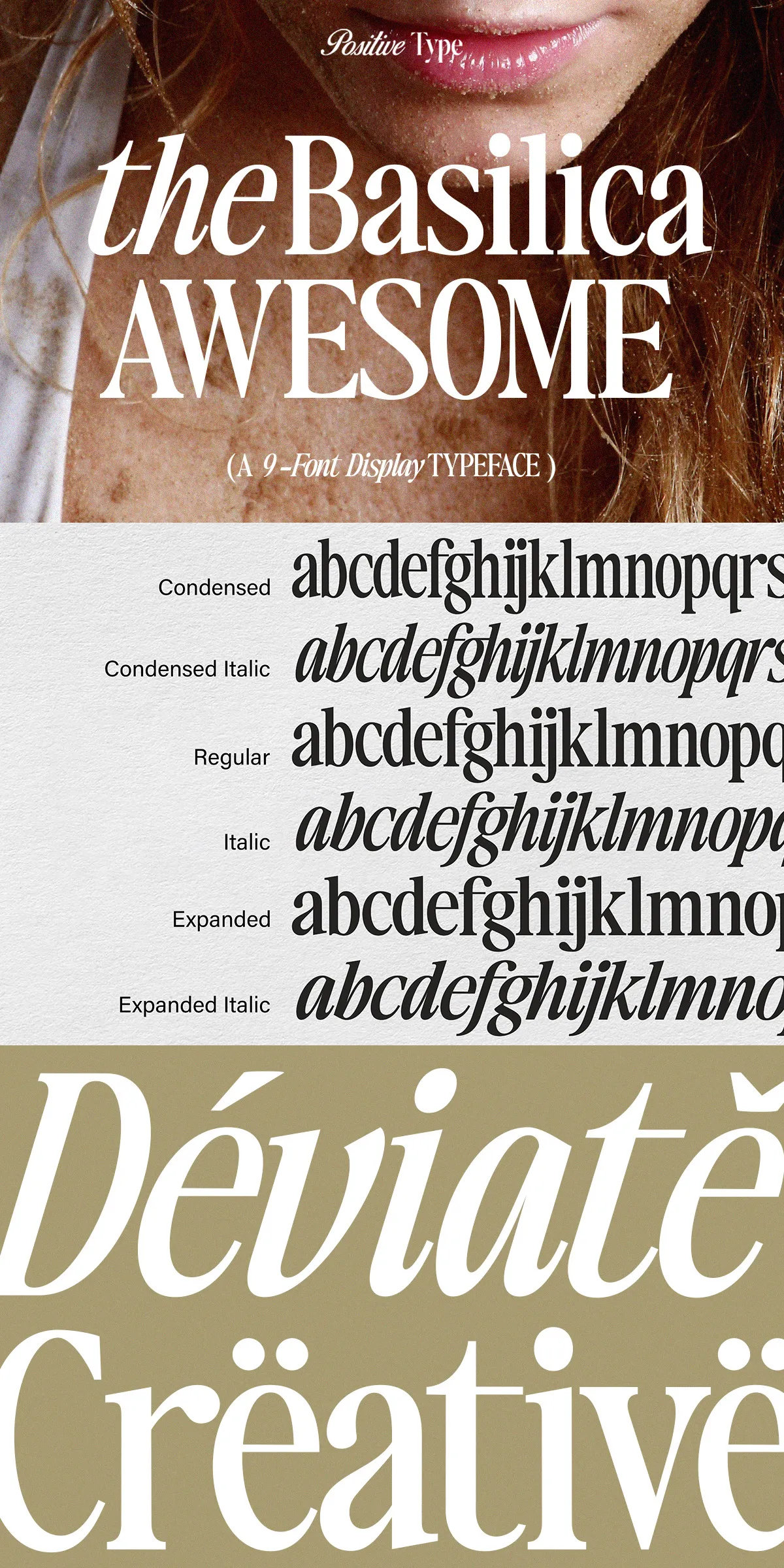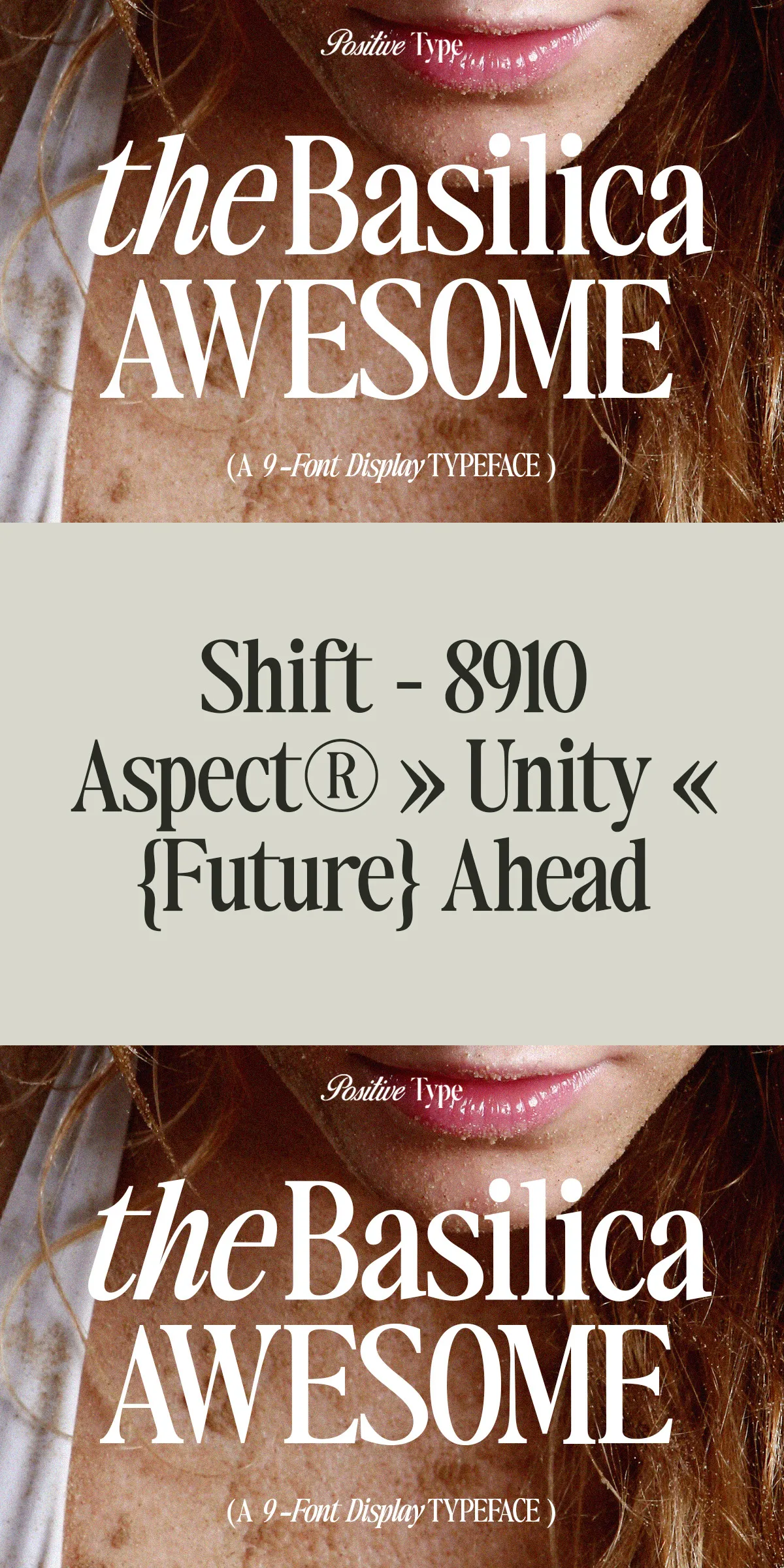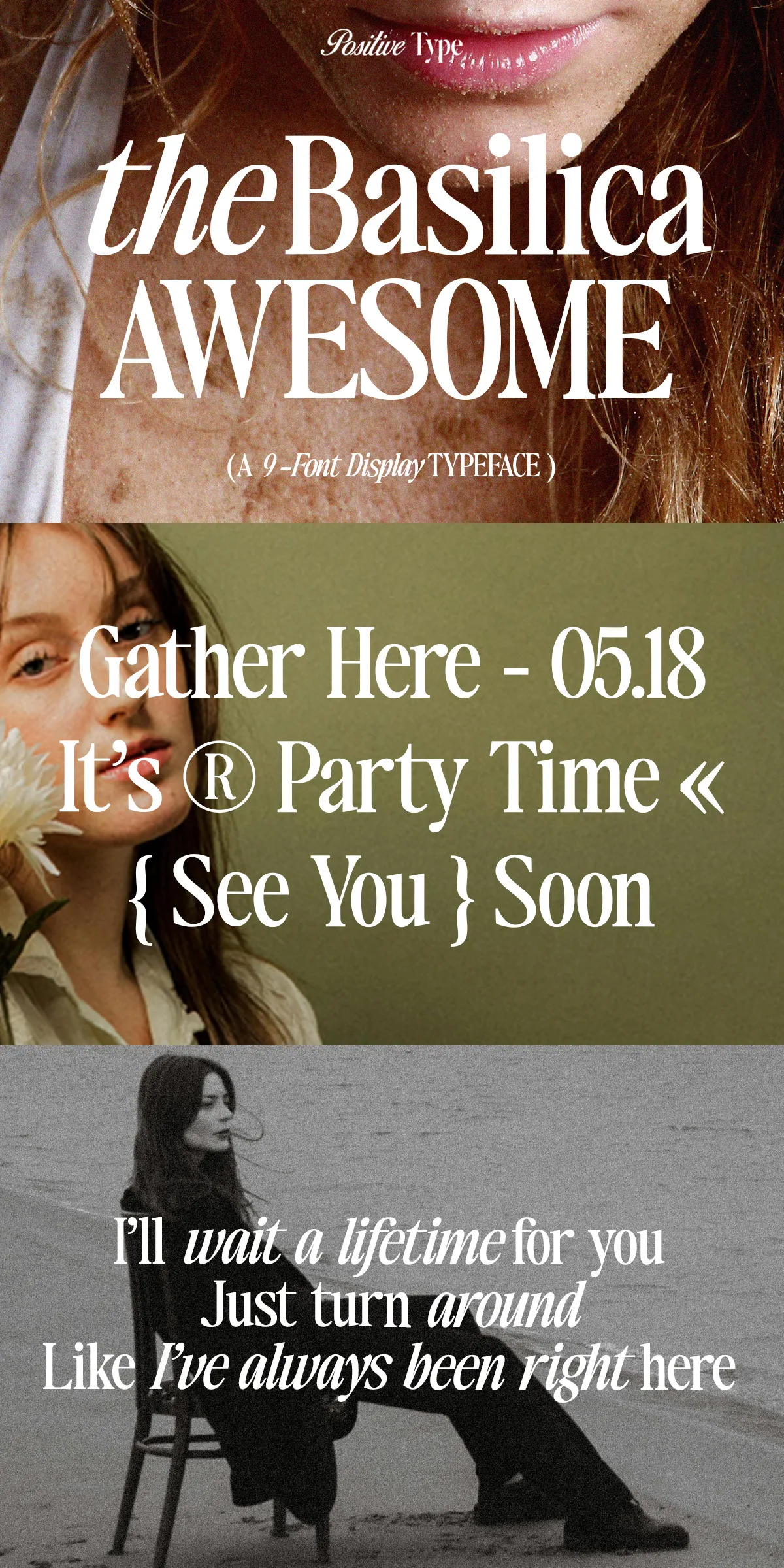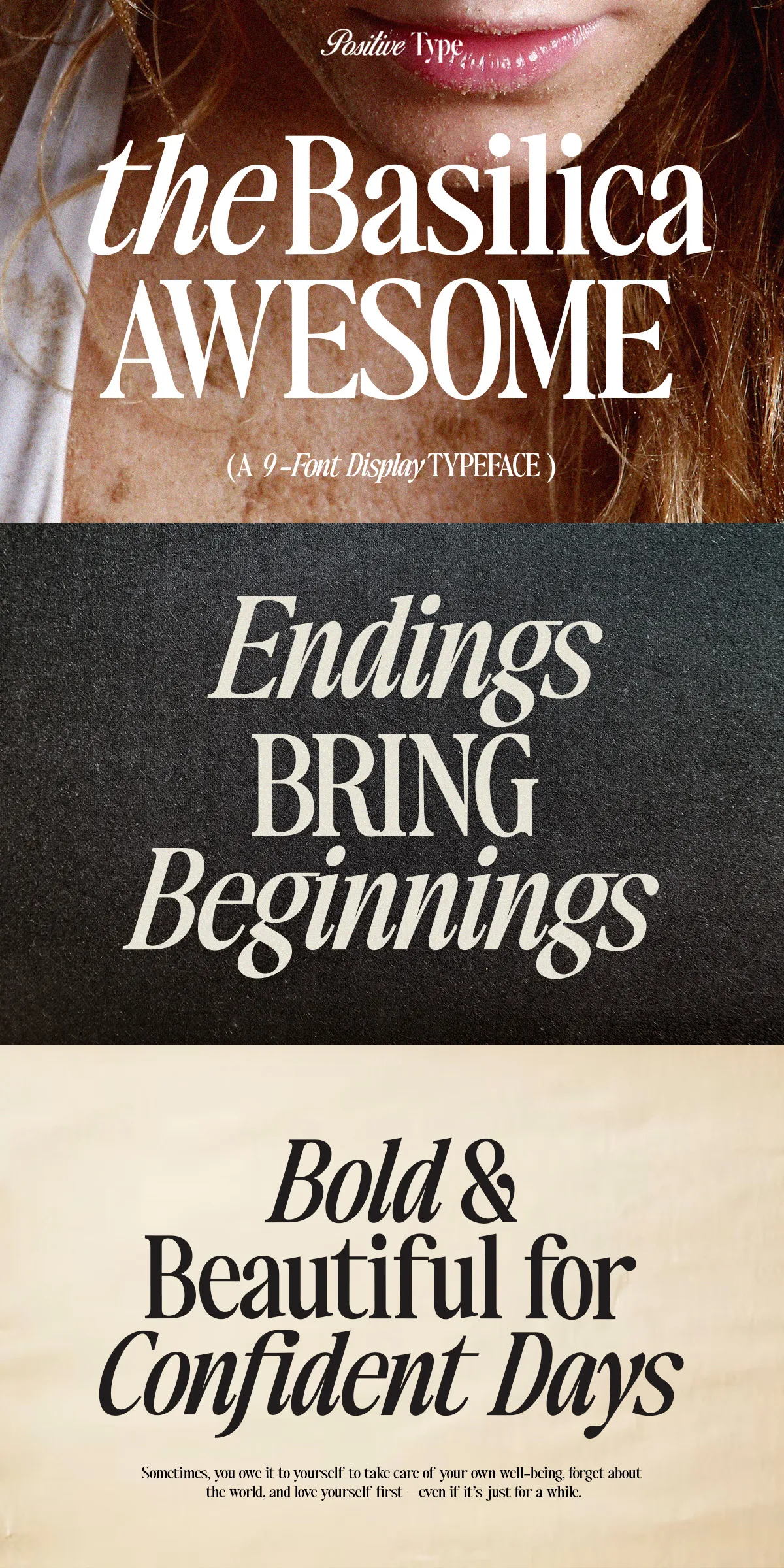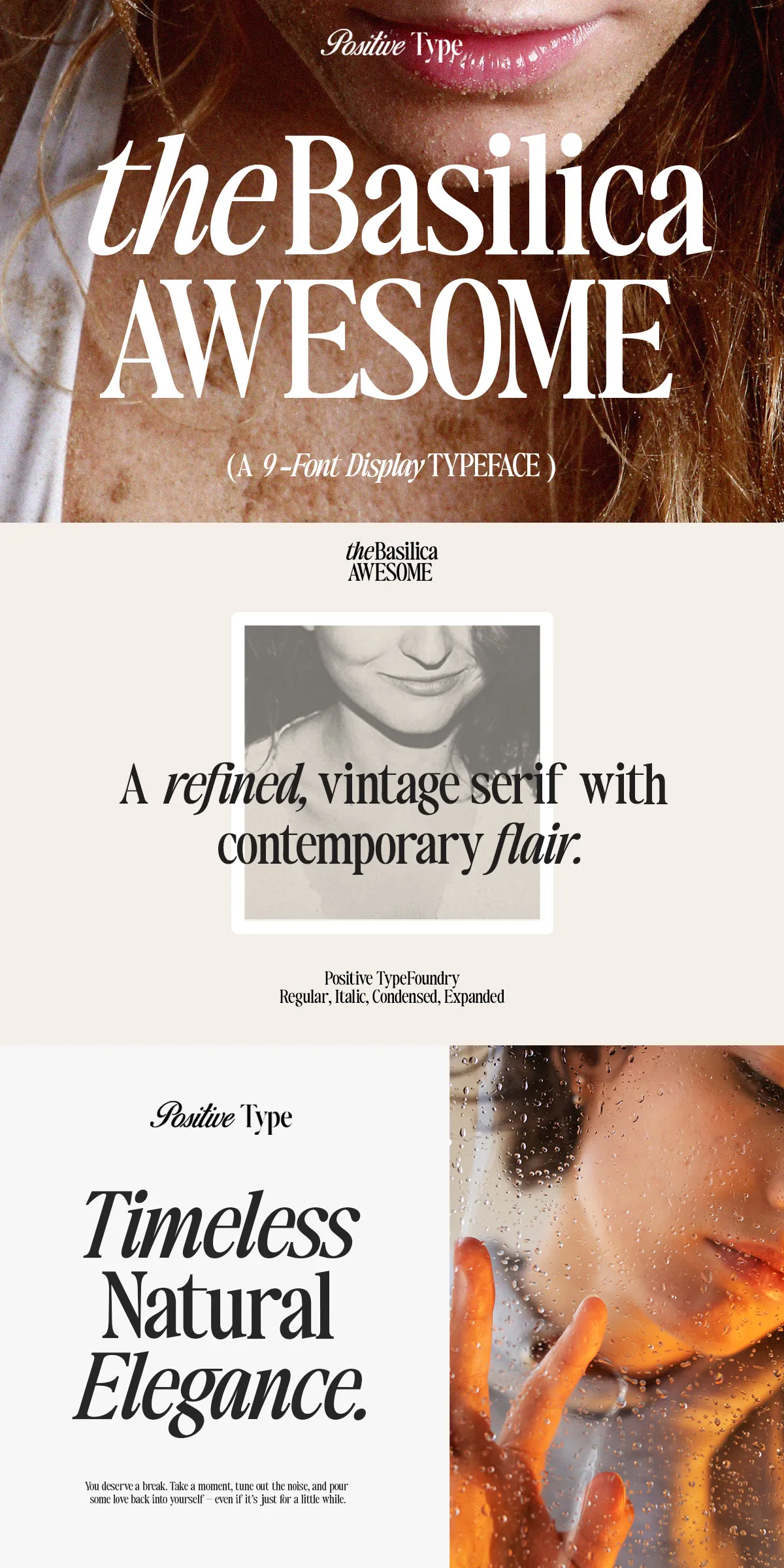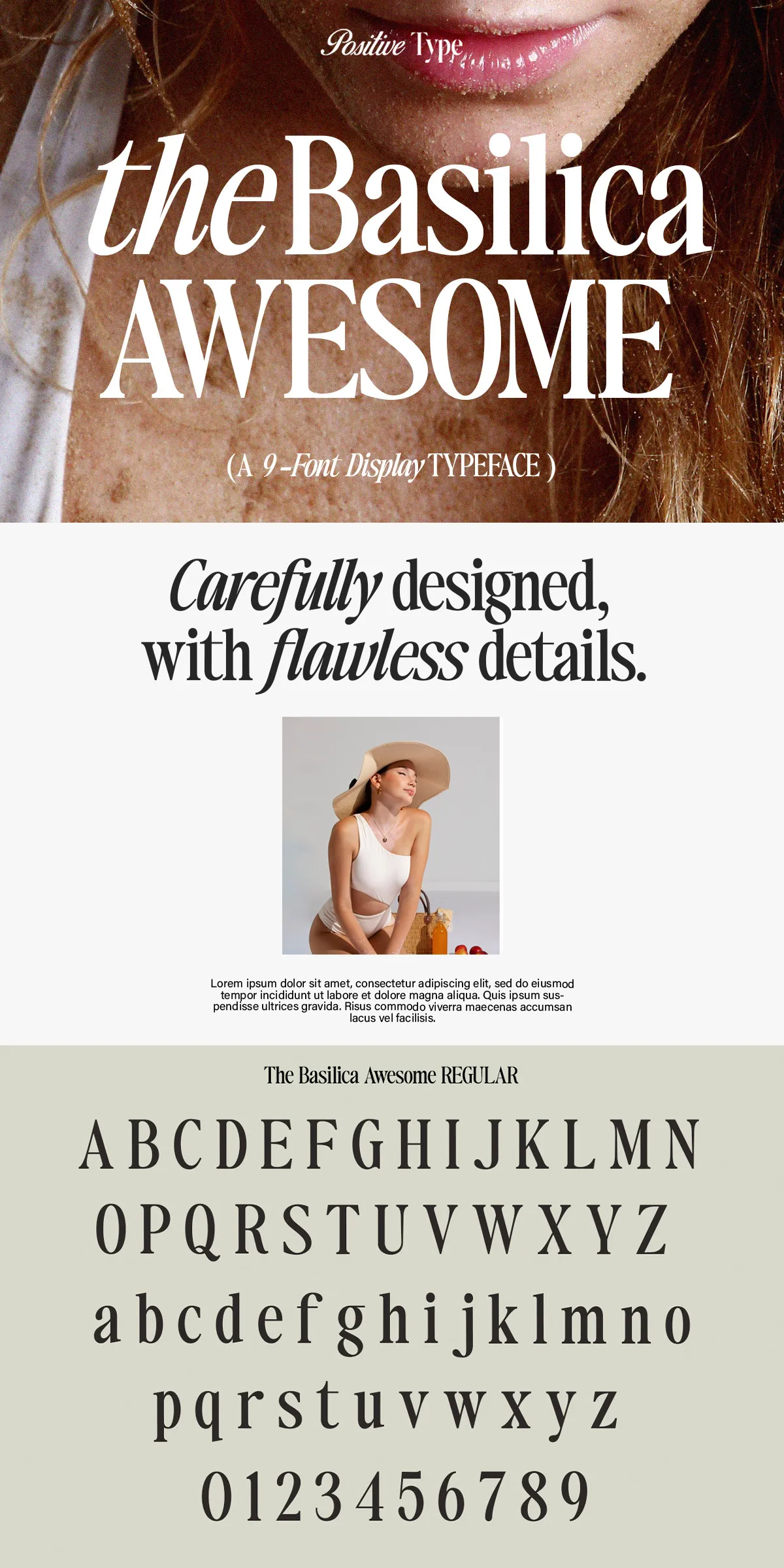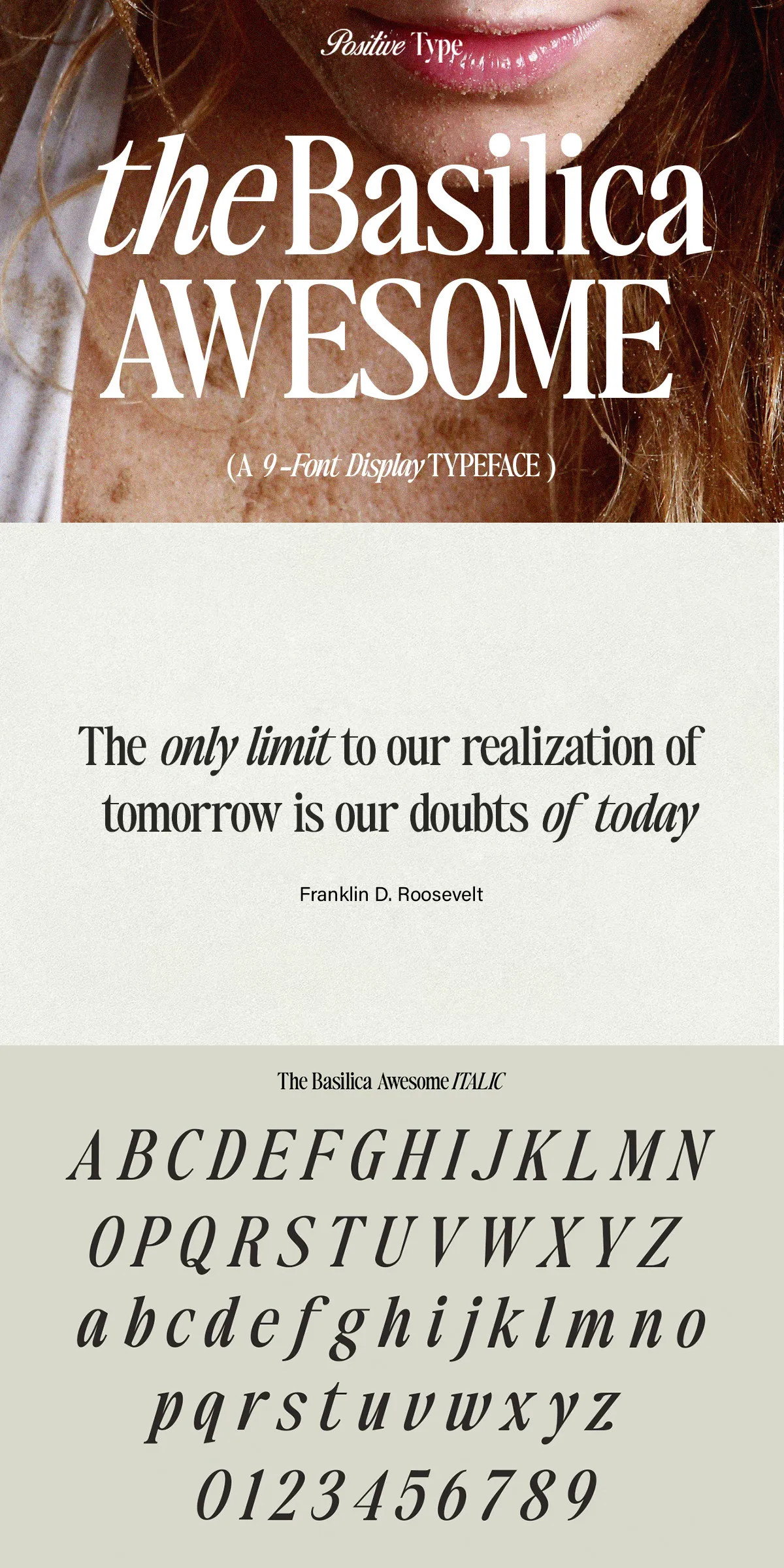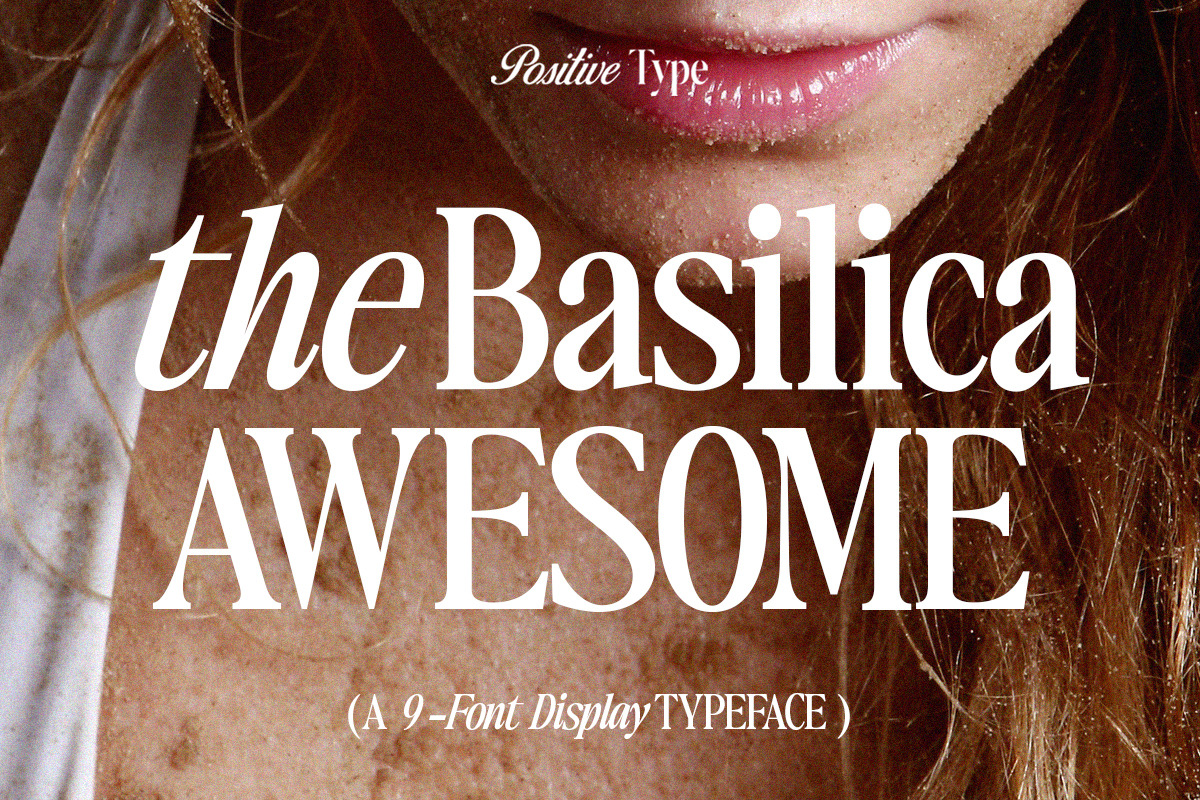
Step into a world where classic charm meets modern precision with Basilica Awesome—a bold, expressive serif font engineered for creators who demand both luxury and versatility. This isn’t just a typeface; it’s a design statement. Designed with a deep respect for vintage typography, Basilica Awesome reimagines the golden era of serif craftsmanship through a sleek, contemporary lens. Every stroke is deliberate, every serif intentional—crafted to deliver visual impact without sacrificing refinement.
Unlock the Full Power of OpenType Features
Go beyond basic typography. Basilica Awesome gives you full access to a rich suite of OpenType features, empowering you to shape your design with precision and personality. Whether you’re crafting a high-end logo or a magazine cover, the ability to toggle between stylistic alternates, ligatures, and custom glyphs ensures your work stands out from the crowd. With advanced contextual alternates and discretionary ligatures, your text flows naturally while exuding sophistication and character.
Key Feature Highlights
- Full uppercase and lowercase variants — switch effortlessly between bold, commanding capitals and graceful lowercase letters to build dynamic typographic contrast.
- Comprehensive number and symbol set — perfect for pricing displays, captions, and design elements that require typographic consistency.
- Extensive multilingual support — includes Latin-based languages with full diacritic coverage, making it ideal for global branding and international projects.
- PUA-encoded glyphs — unlock hidden decorative characters, ornamental swashes, and artistic flourishes for one-of-a-kind custom designs.
- Stylistic alternates and ligatures — elevate your typography with seamless character variations and fluid letter combinations.
Designed for High-End Branding & Creative Projects
Basilica Awesome shines brightest in applications that demand presence and prestige. Whether you’re building a luxury brand identity or designing a limited-edition packaging line, this font delivers the visual weight and elegance that commands respect.
Perfect Use Cases
- Logo design — create timeless brand marks that resonate with heritage and refinement.
- Clothing and fashion branding — add class to apparel labels, tags, and streetwear designs.
- Magazine titles and editorial layouts — make headlines unforgettable with bold, elegant typography.
- Packaging and product design — elevate physical products with a sense of sophistication and exclusivity.
- Advertisements and print campaigns — captivate audiences with typographic drama and refined detail.
- Postcards, invitations, and premium stationery — bring elegance to every handwritten touchpoint.
Basilica Awesome – Where History Meets Innovation
This is type design with purpose. With its unique blend of playful serifs, elegant proportions, and modern adaptability, Basilica Awesome doesn’t just fit your project — it defines it. It’s the perfect bridge between nostalgia and current trends, giving your work a timeless, high-end feel that feels both familiar and fresh.